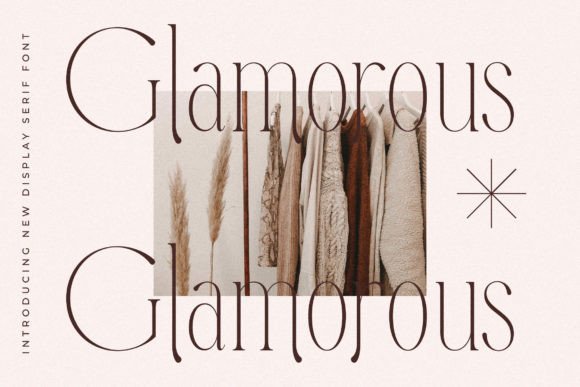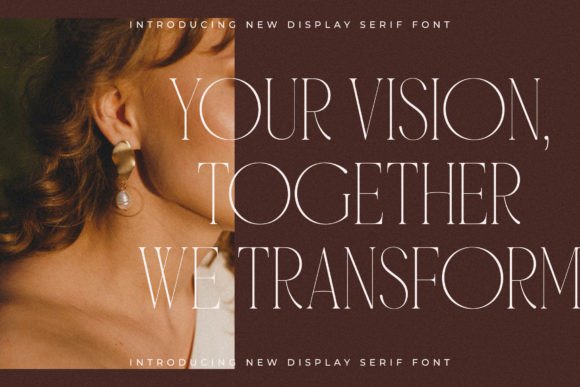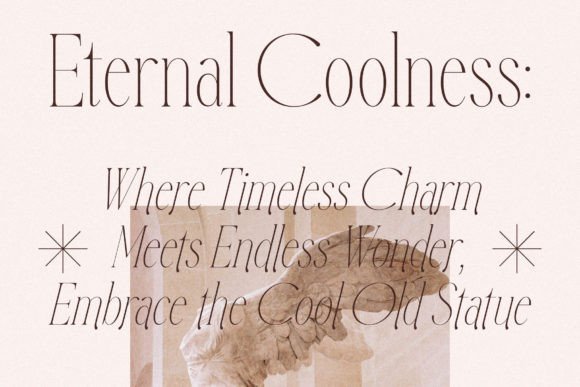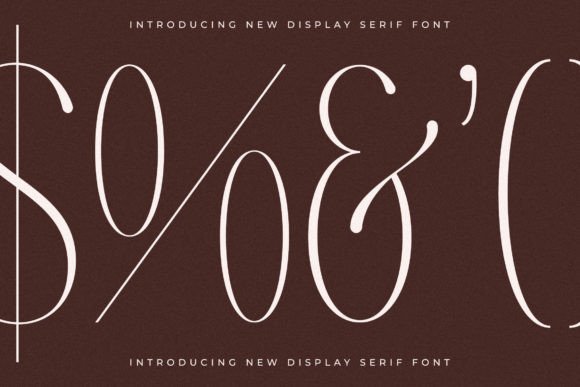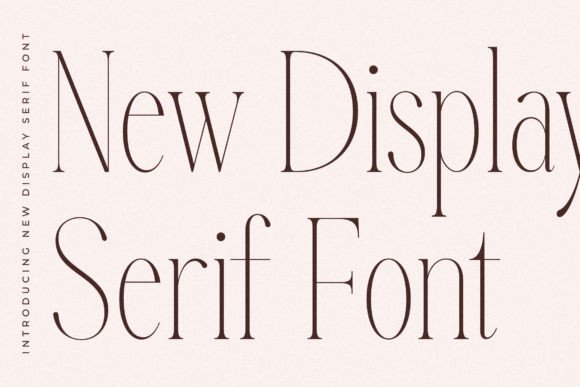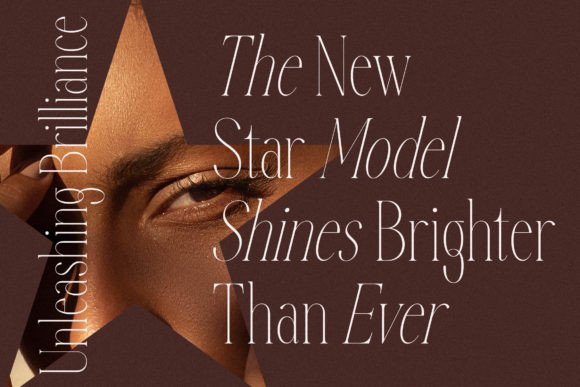
Introduction to Qalderon Font
Have you ever been in the midst of a creative project, staring at a blank canvas, desperate for that perfect font to bring your vision to life? I’m sure many designers can relate to this feeling. For me, it was the moment I discovered the Qalderon Font – a modern and elegant serif font that instantly elevated my design game.
The Qalderon Font is more than just a font; it’s a design resource that offers a high-quality, versatile solution for any creative project. With its unique style and transparent background capabilities, it’s perfect for creating eye-catching logos, book or movie title designs, and even fashion brand identities. And the best part? It’s available for free download, making it an invaluable asset for designers of all levels.
Key Features of Qalderon Font
- High-quality design resource ideal for creative projects, offering a unique and stylish touch.
- Supports transparent background, allowing for flexible usage in various design contexts.
- Perfect for designers seeking a high-quality, versatile font for their creative projects.
Honest Review: Qalderon Font
I recently stumbled upon the Qalderon Font, and I must say it’s been a game-changer for my creative projects. The font offers a high-quality design resource that can elevate any visual content.
What works well about the Qalderon Font is its versatility. It’s available for free download, making it an excellent addition to any design toolkit. The font’s modern and sleek design makes it perfect for creative projects, from digital art to branding materials.
Some of the features that stood out to me include:
- High-quality design that’s perfect for a wide range of creative projects
- Transparent background, making it easy to use in various design contexts
- Some users may find the font’s style too minimalist for their taste
- The font may not be suitable for projects that require a more traditional or formal look
Overall, I’m thoroughly impressed with the Qalderon Font. Its high quality and versatility make it an excellent addition to any design resource library. While there may be some limitations to consider, I believe the benefits far outweigh the drawbacks.
The Qalderon Font is a versatile and high-quality design resource ideal for creative projects that require a unique touch. With its transparent background, this font can be easily integrated into various design platforms.
Tips for Getting the Most Out of Qalderon Font
Use the Qalderon Font in conjunction with a solid-colored background to make the transparent background truly effective. Experiment with different font sizes and colors to add depth and visual interest to your design project.
Common Use Cases for Qalderon Font
The Qalderon Font is ideal for use in creative projects such as graphic design, digital art, and typography. Its unique style and transparent background make it a versatile design resource for a variety of applications.